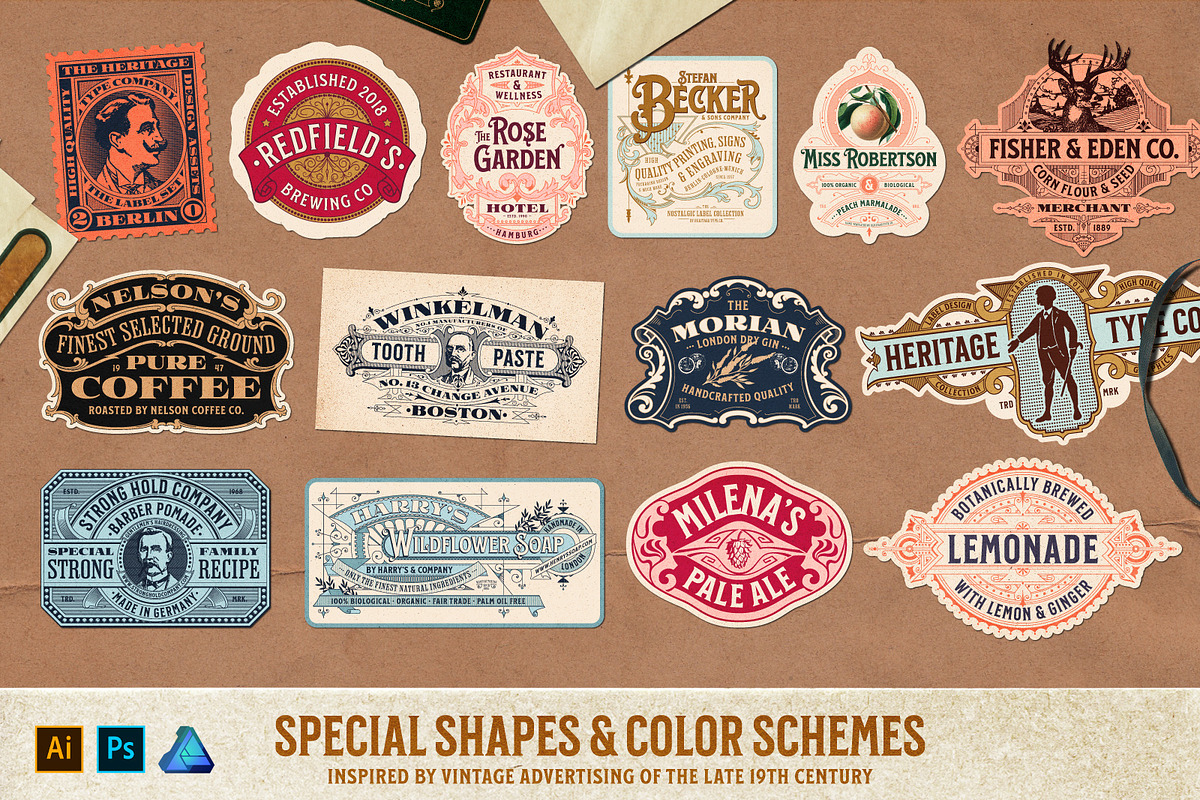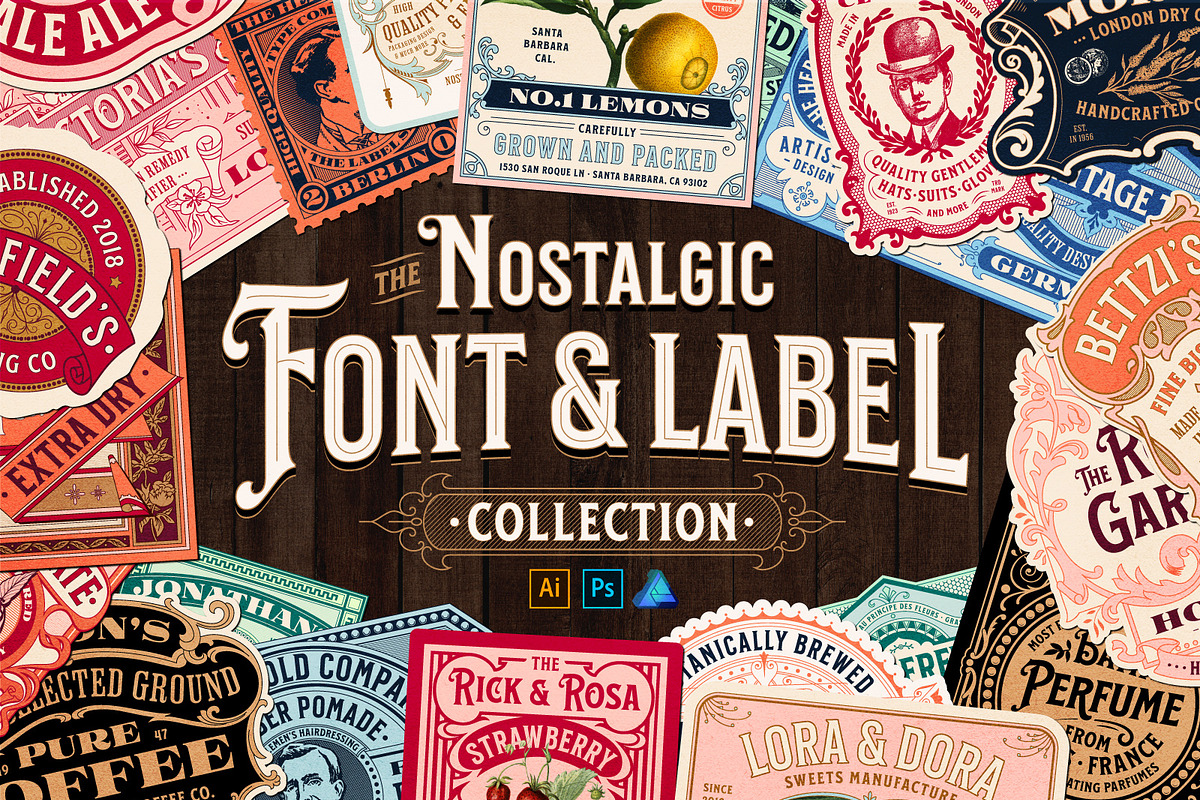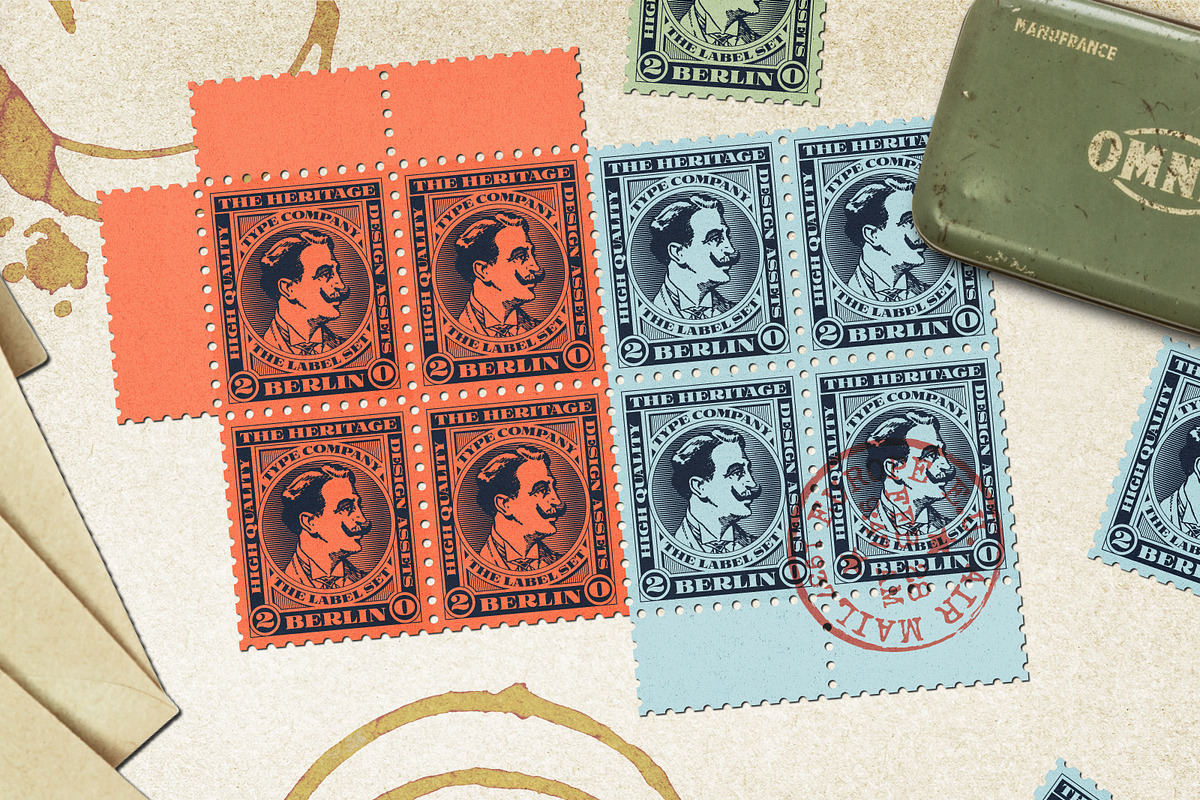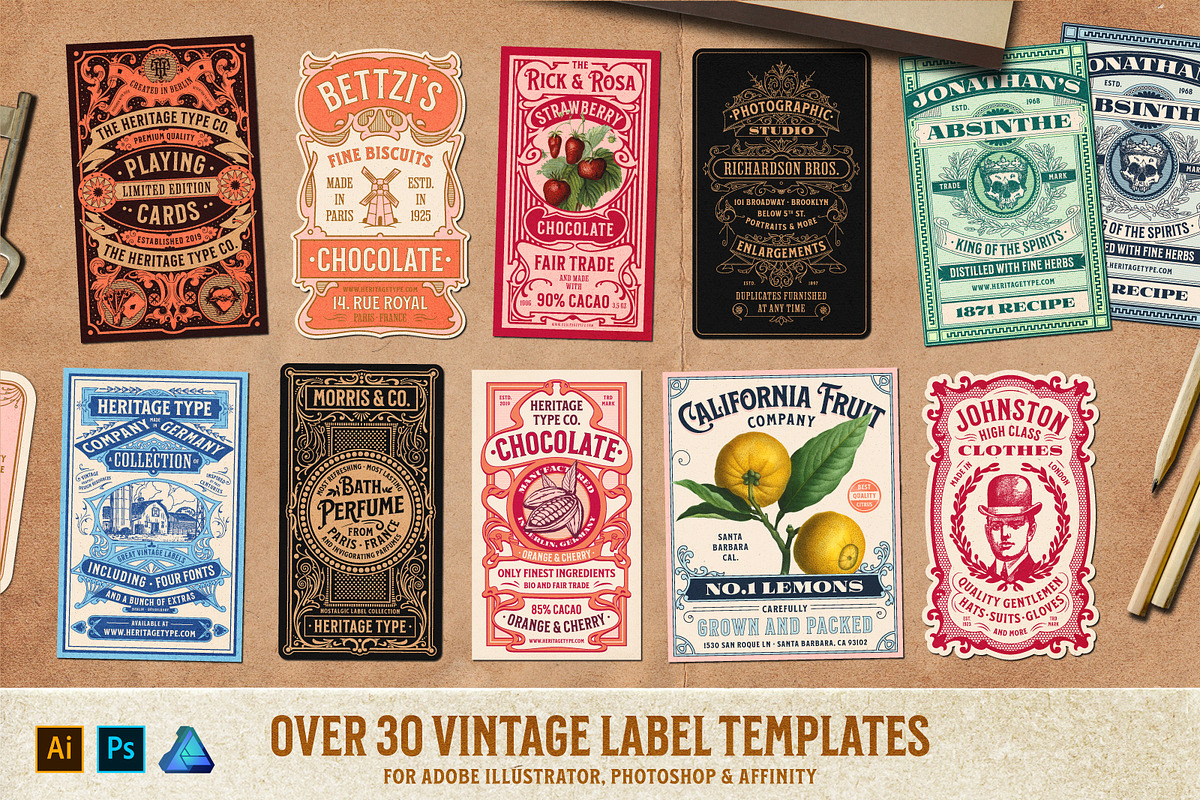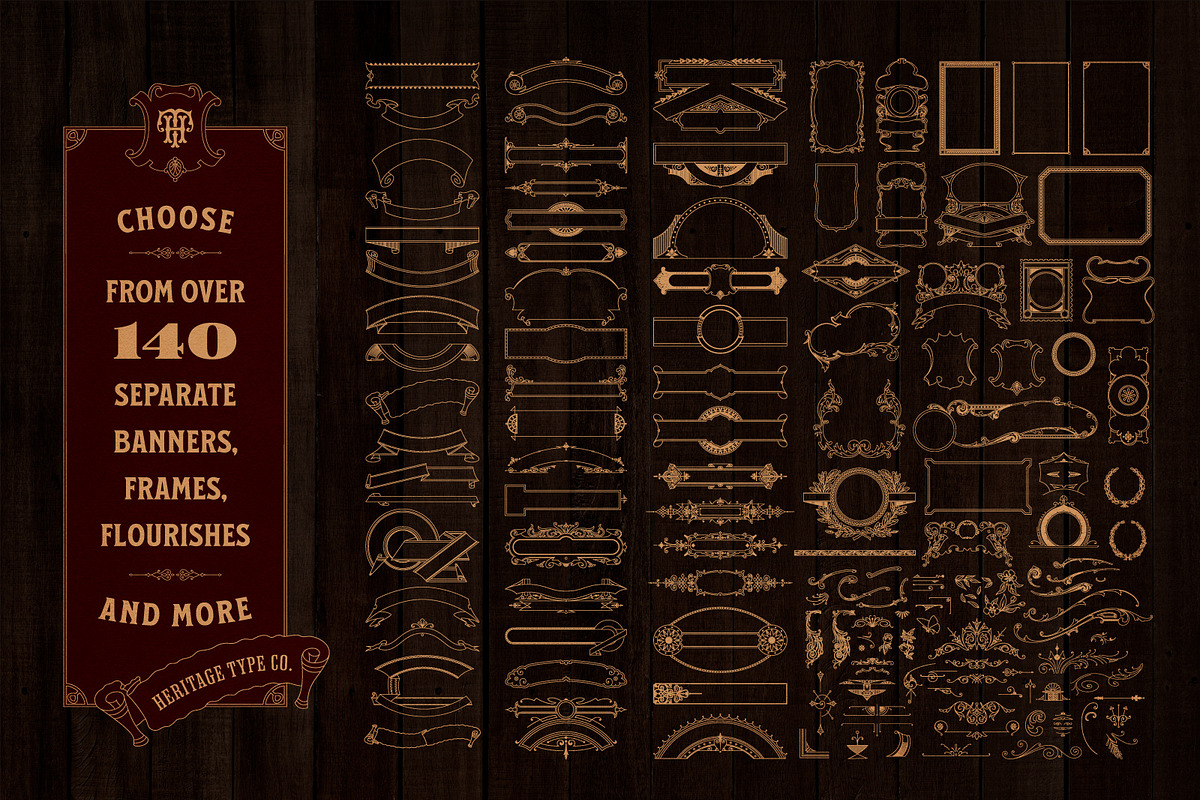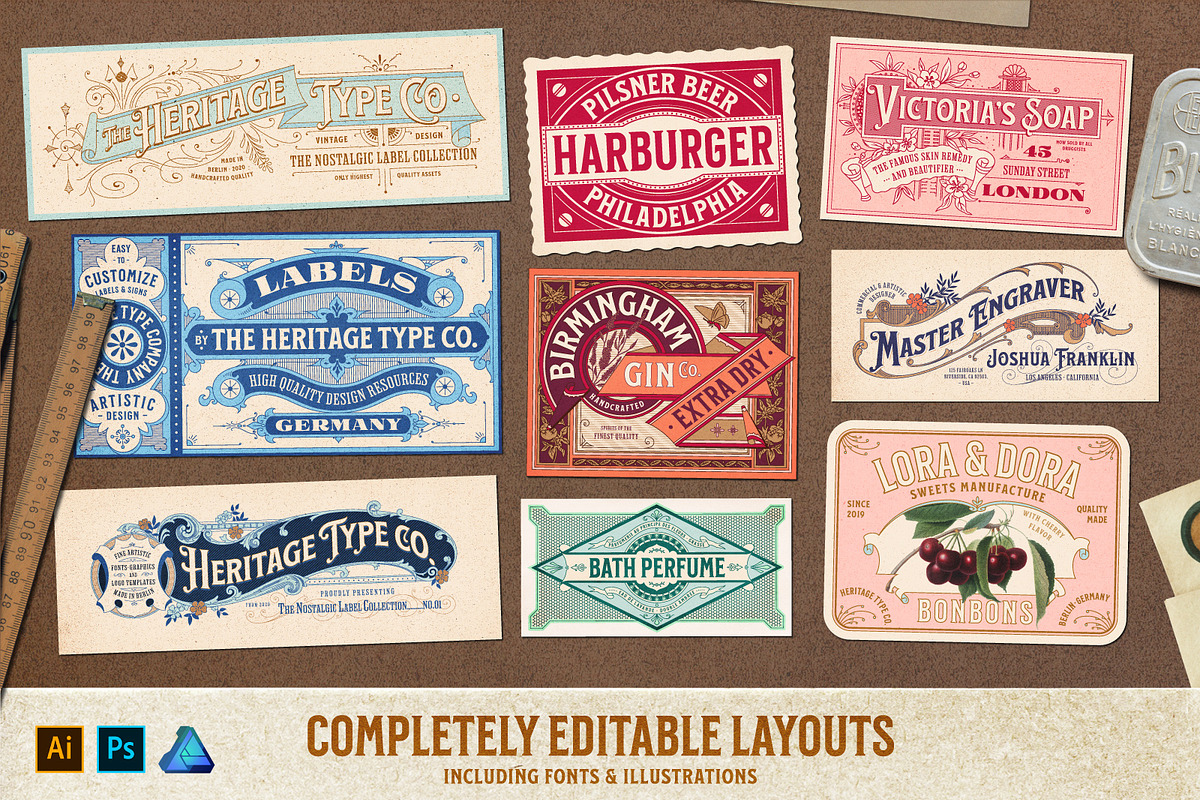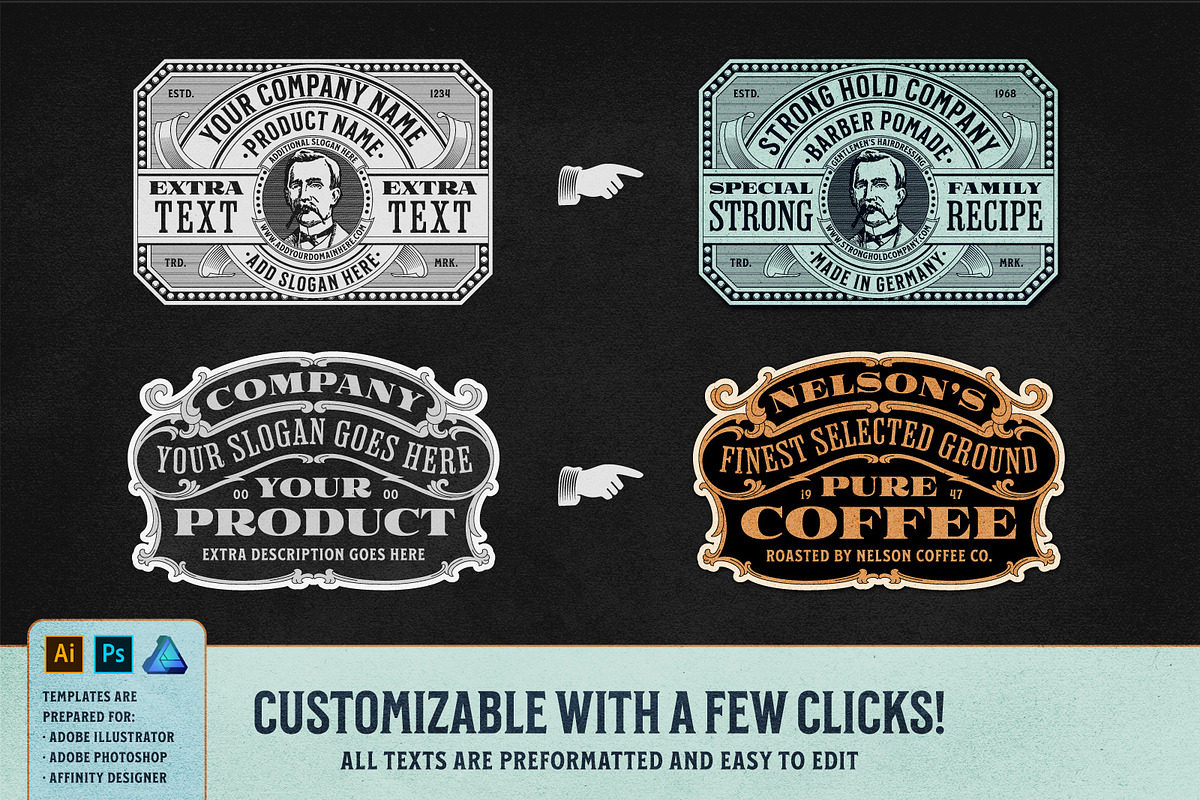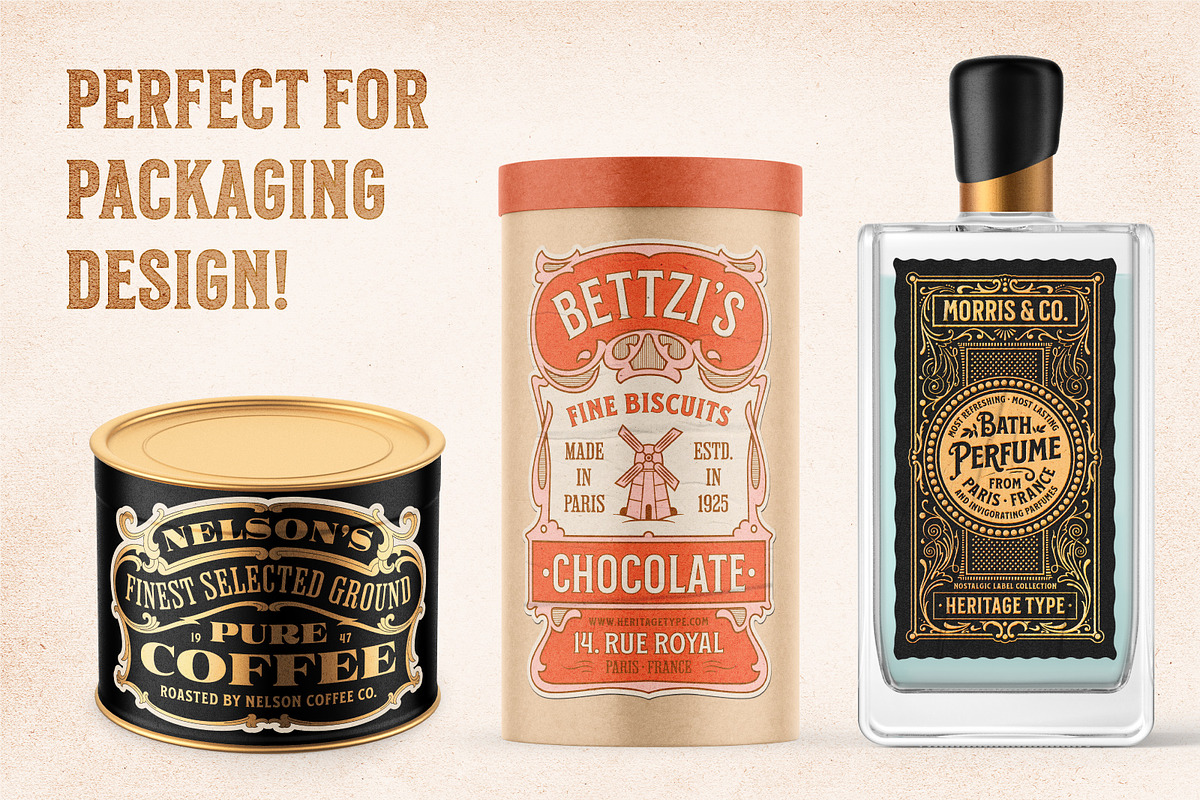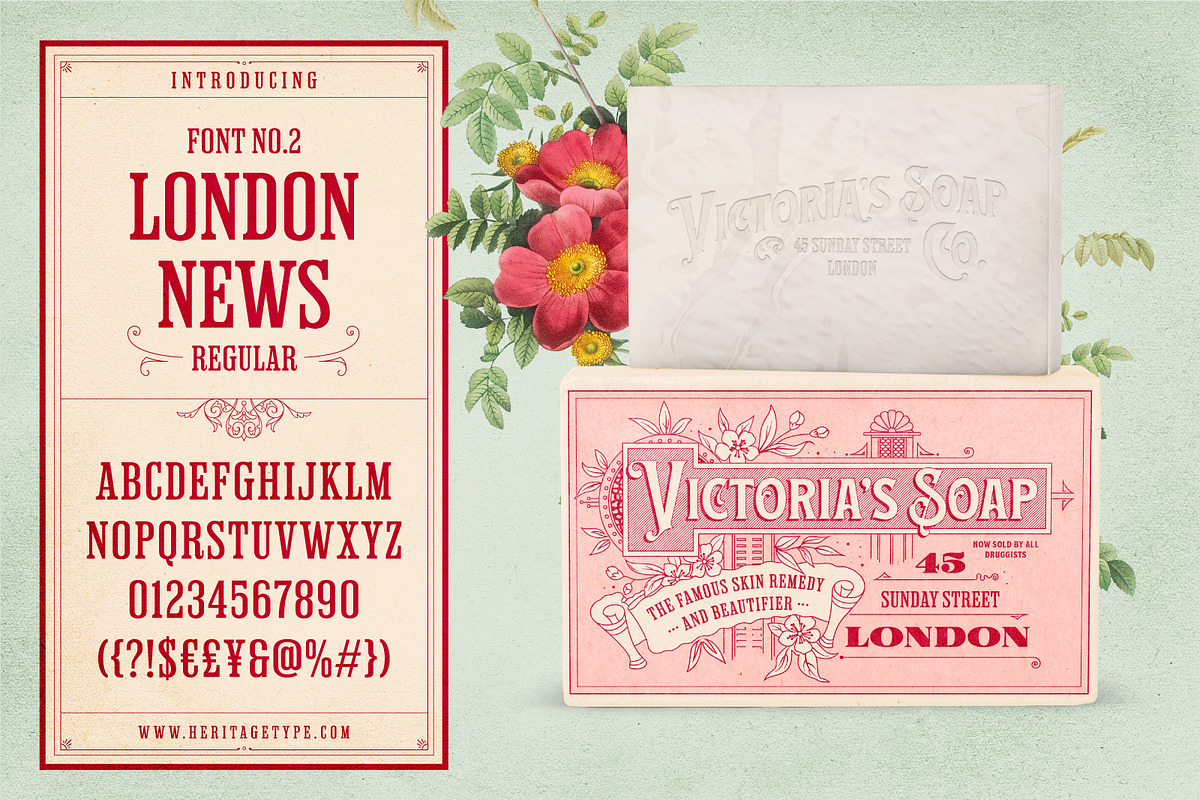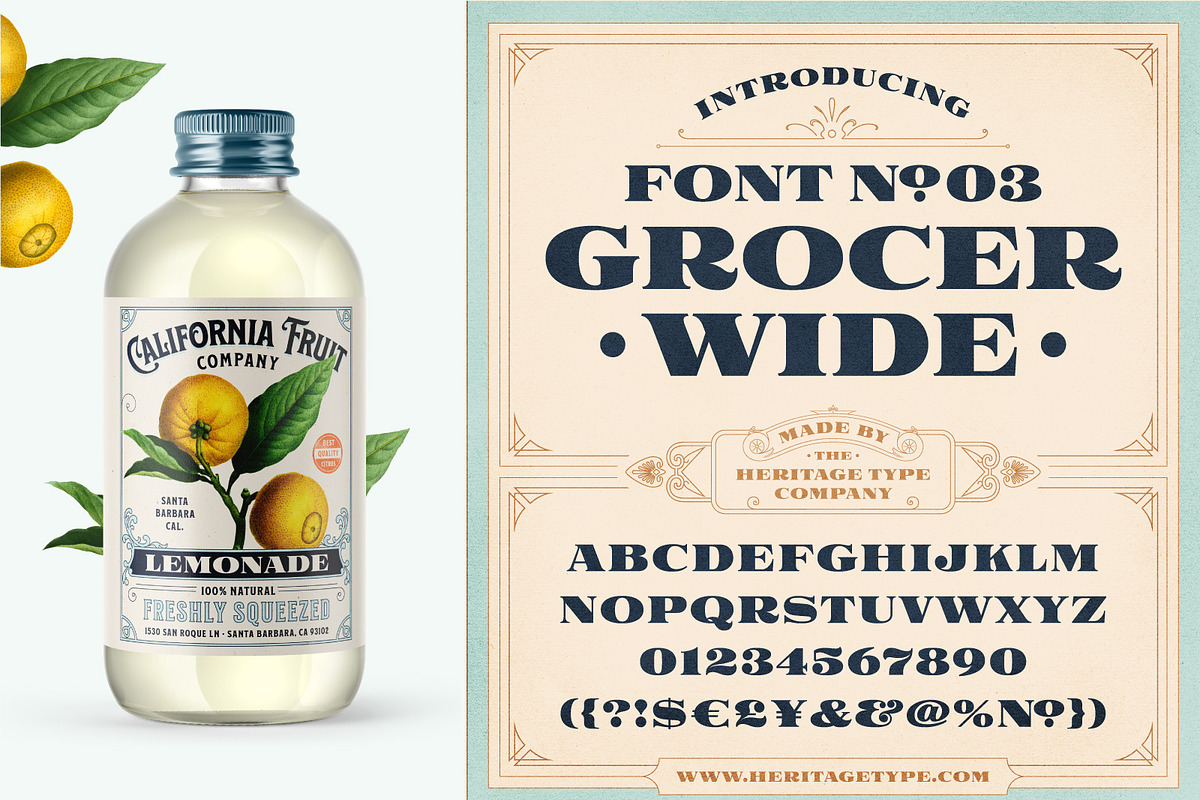
Nostalgic Font and Label Collection
The Nostalgic Font and Label Collection includes 34 customizable vector label designs, 4 unique vintage fonts and over 140 separate elements with a super high-quality design standard. All templates are easy to edit and can be customized to beautiful individual designs.